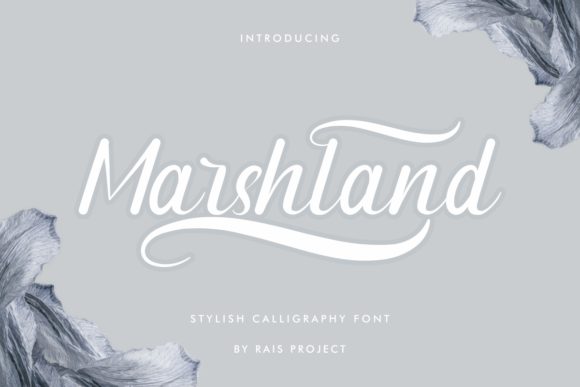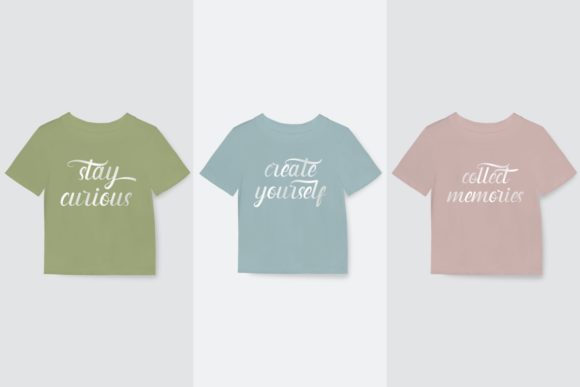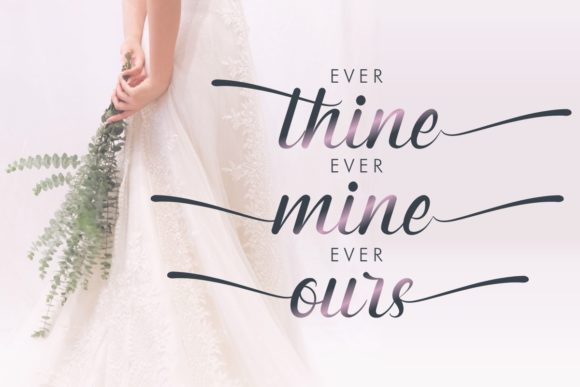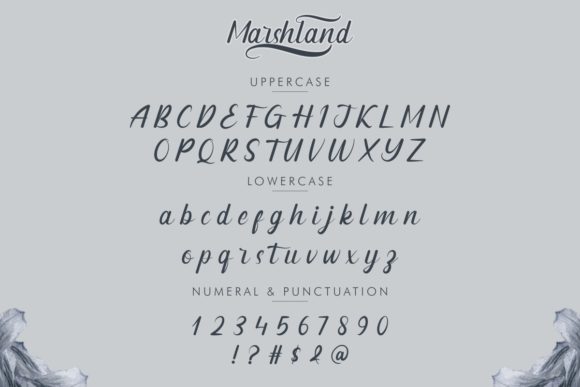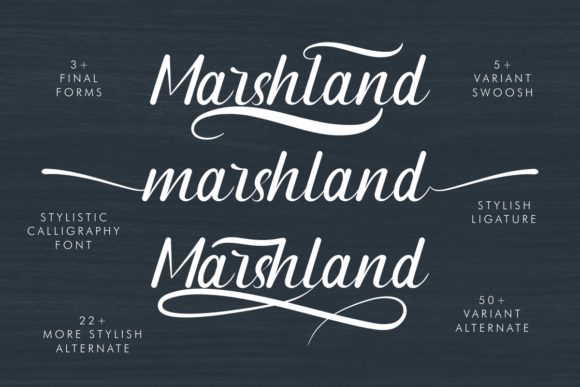
About Marshland Font
Marshland is a delicate and elegant handwritten font. Its distinct and well rounded letters make this font a masterpiece. This font is PUA encoded which means you can access all of the glyphs and swashes with ease!